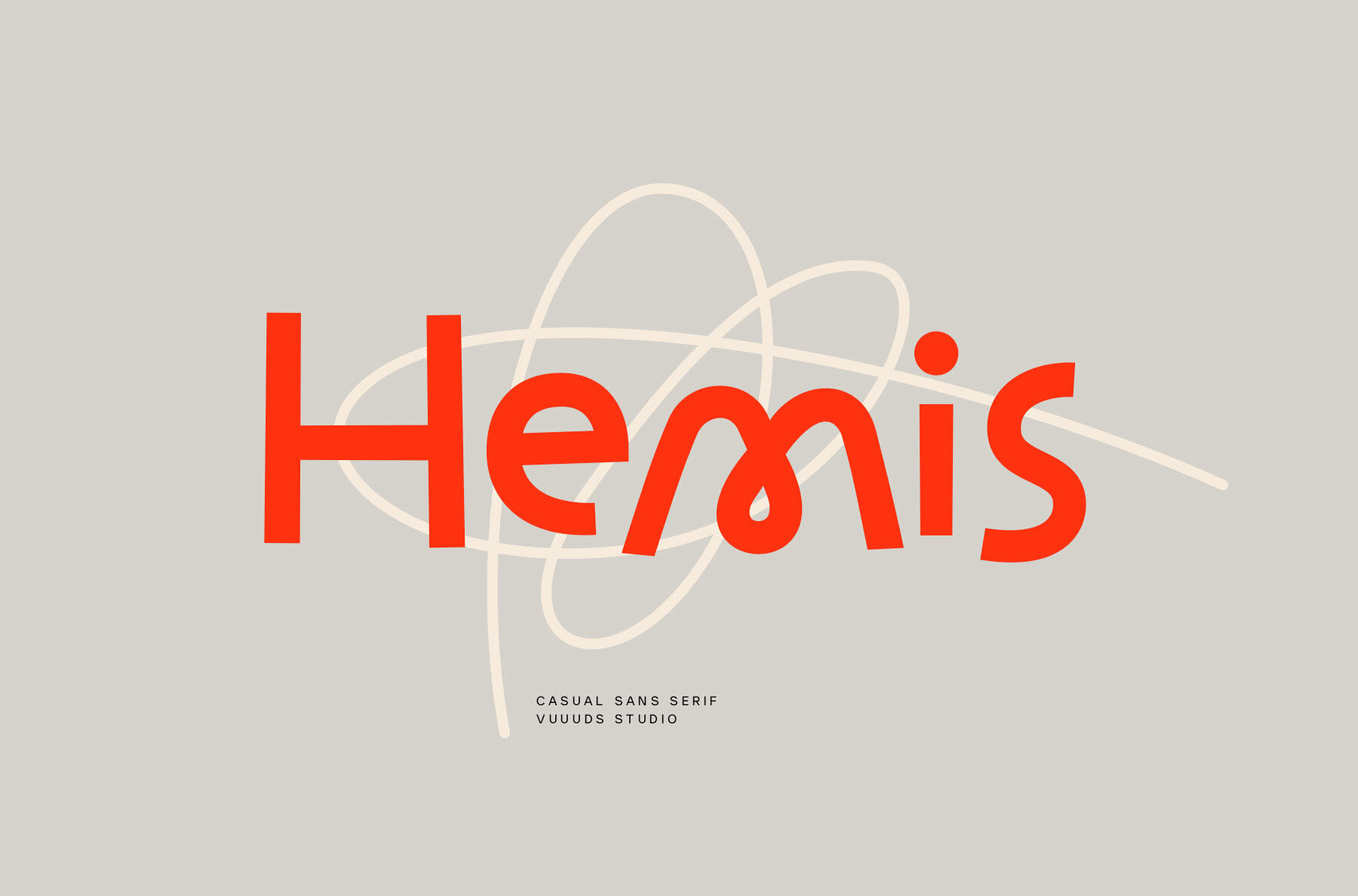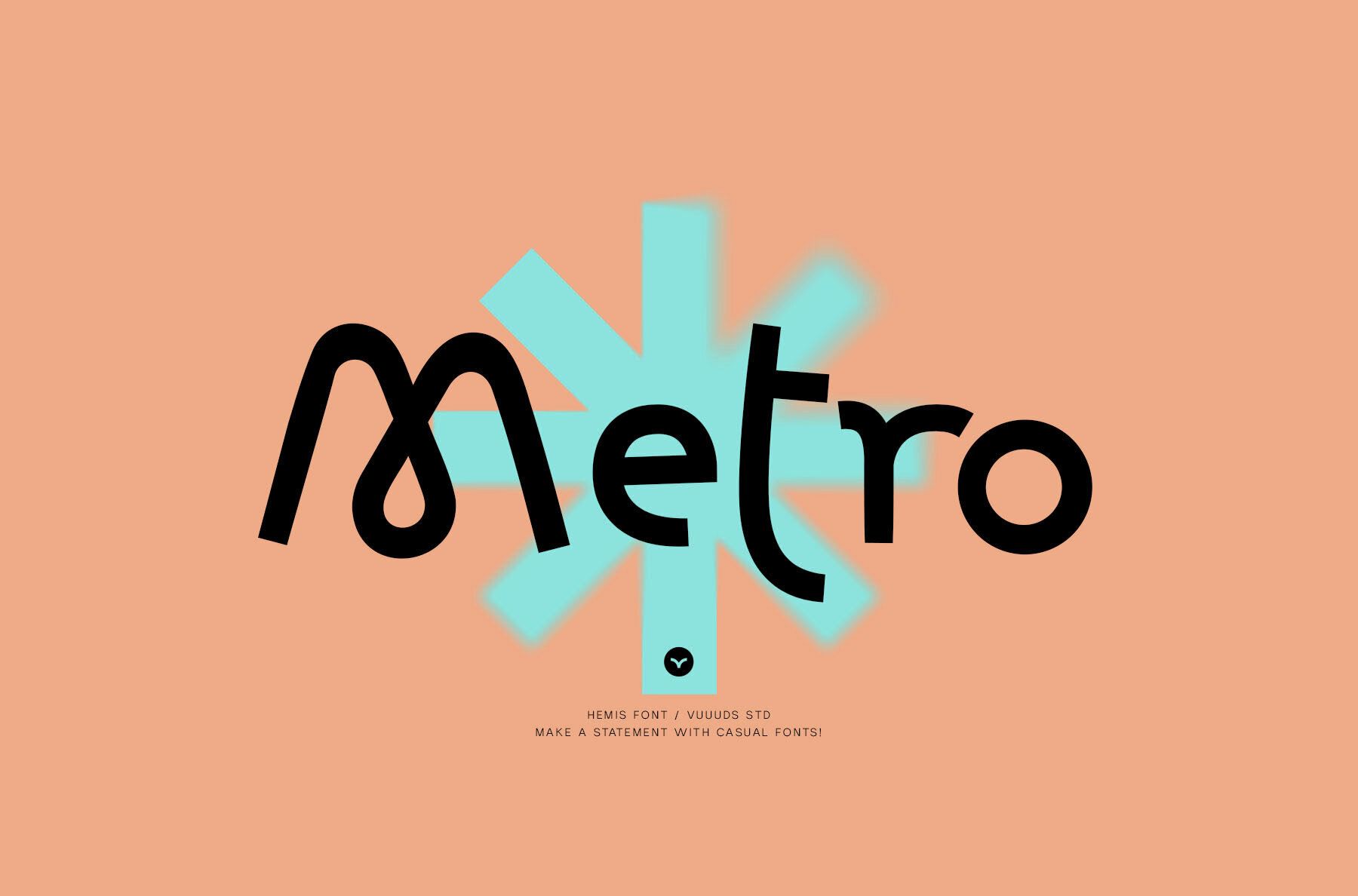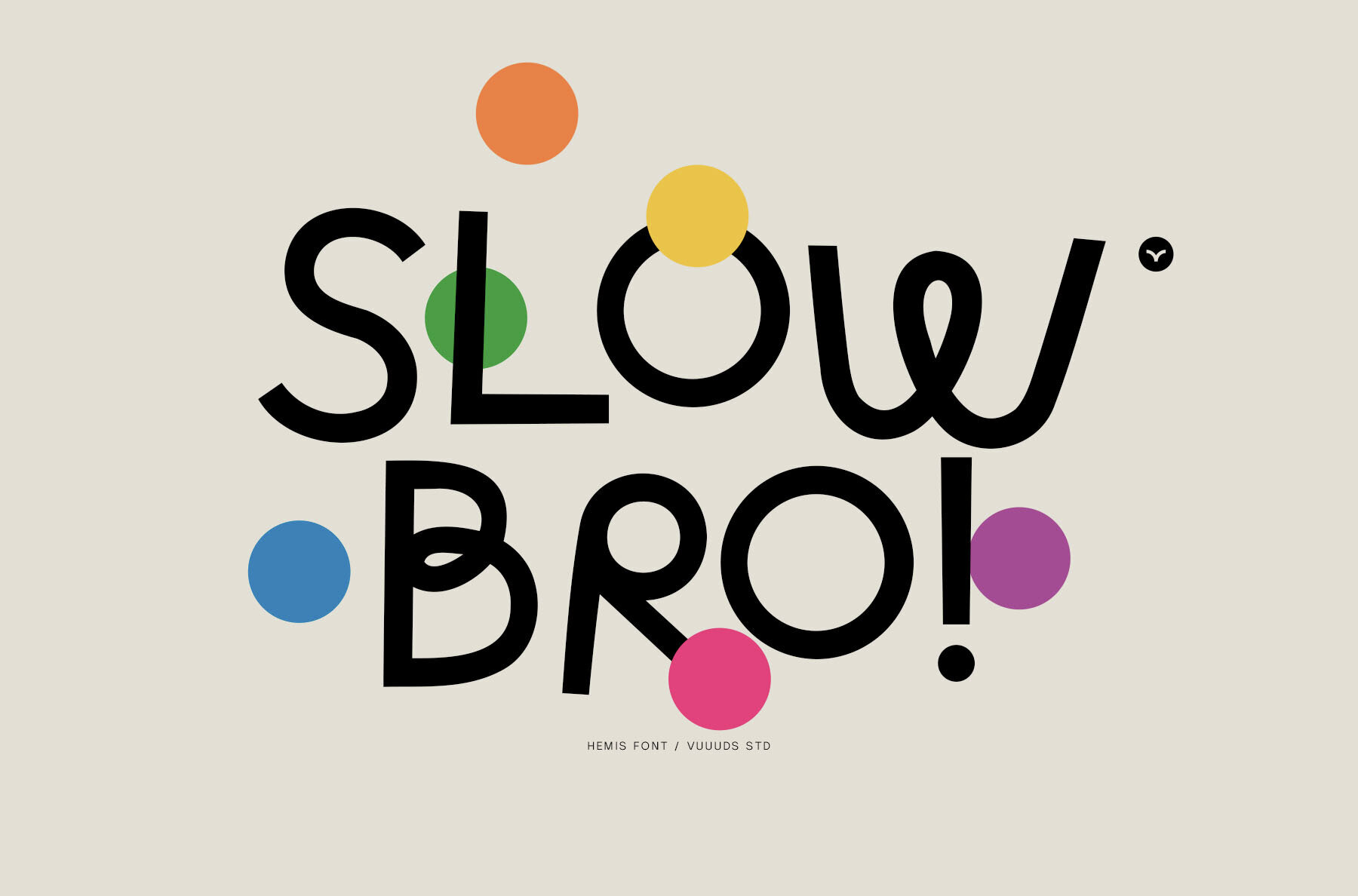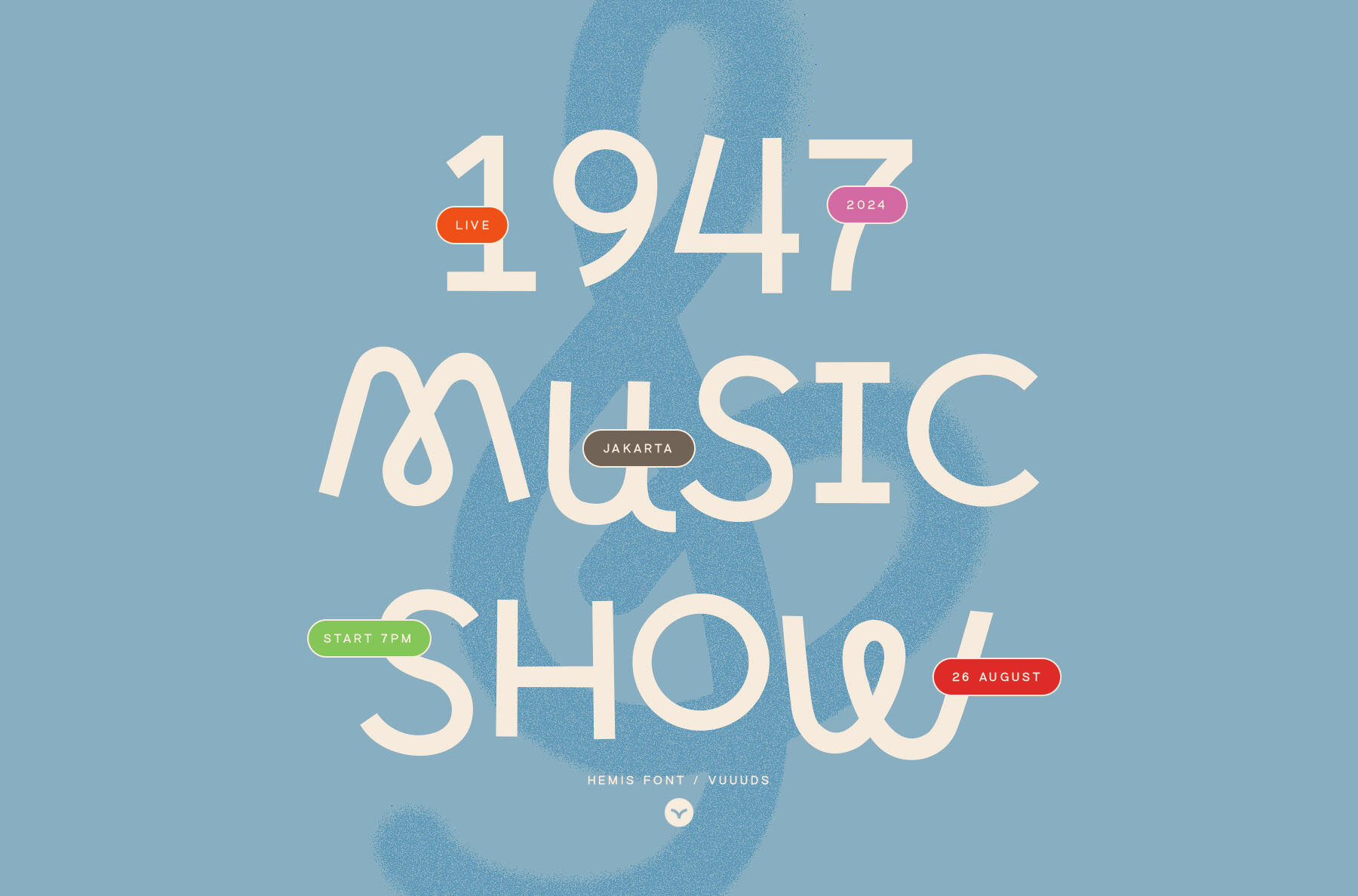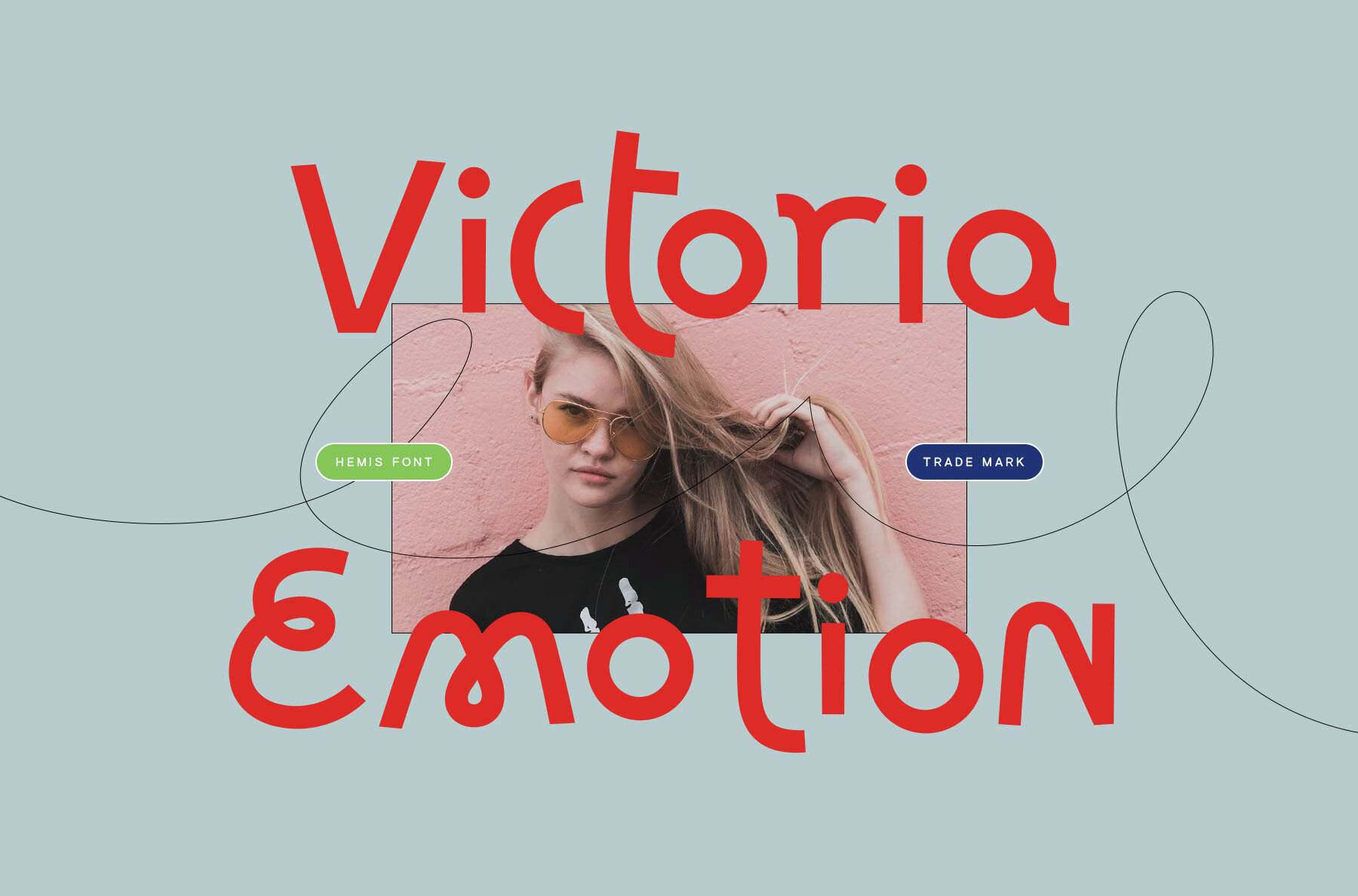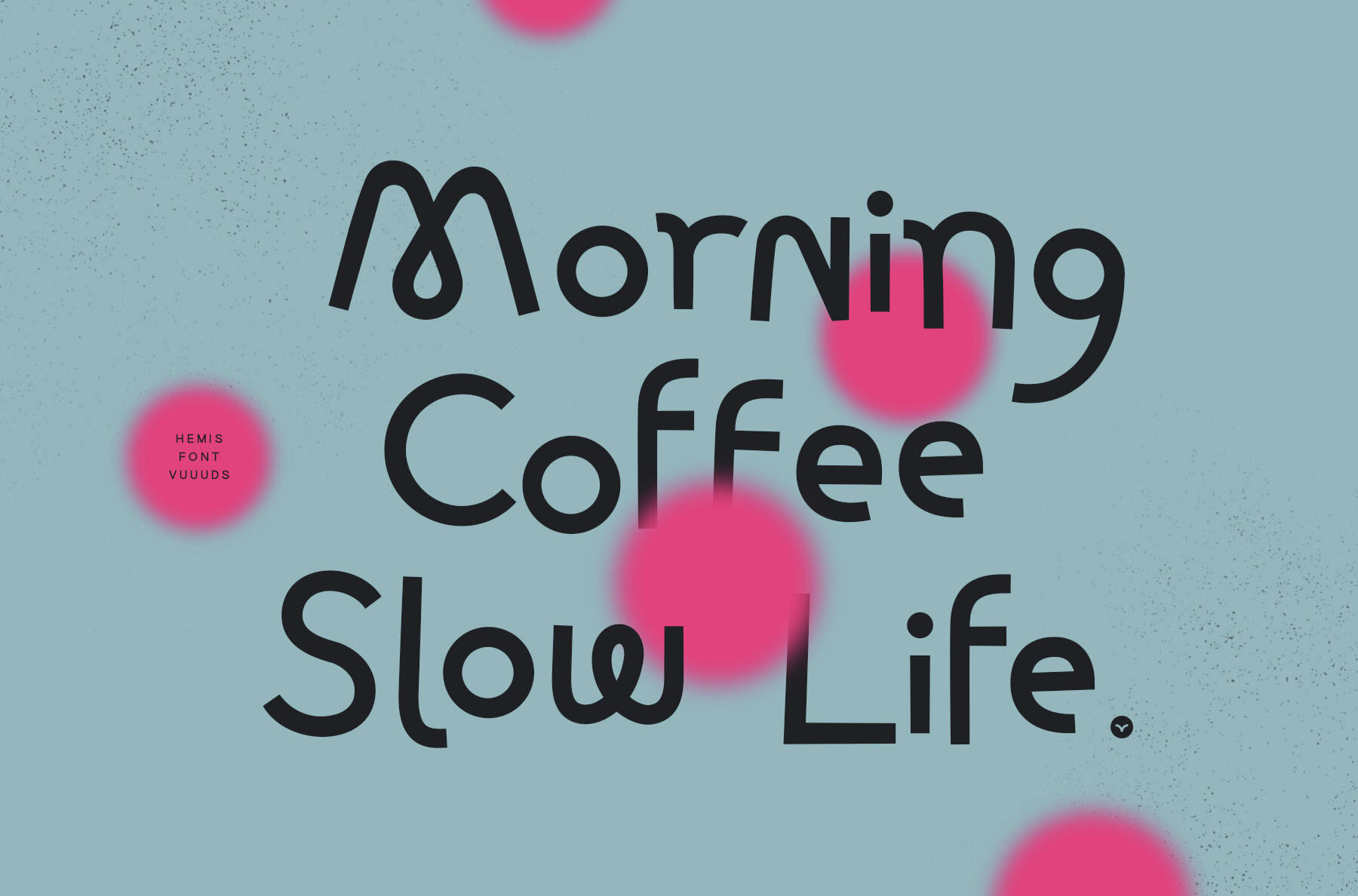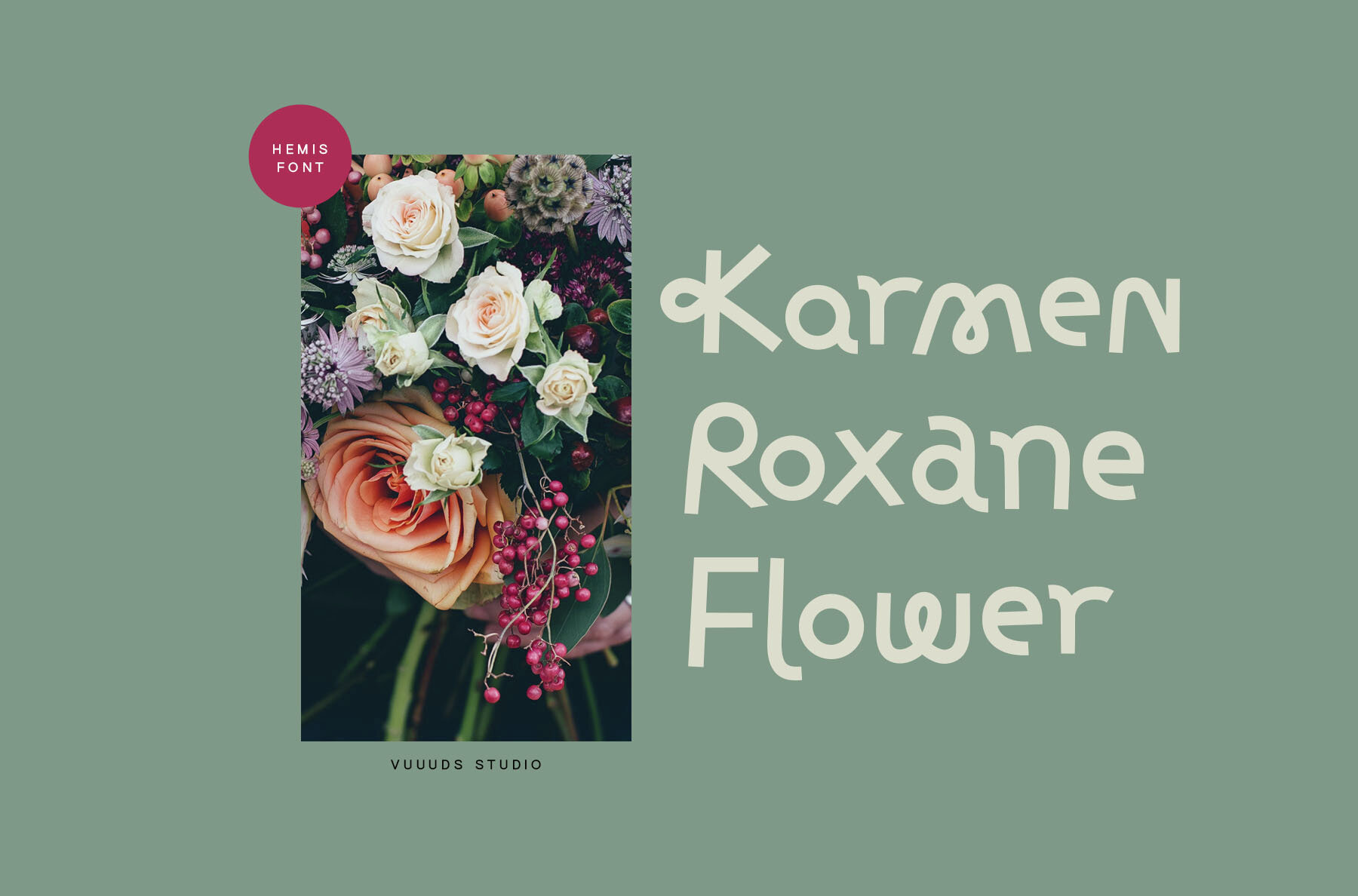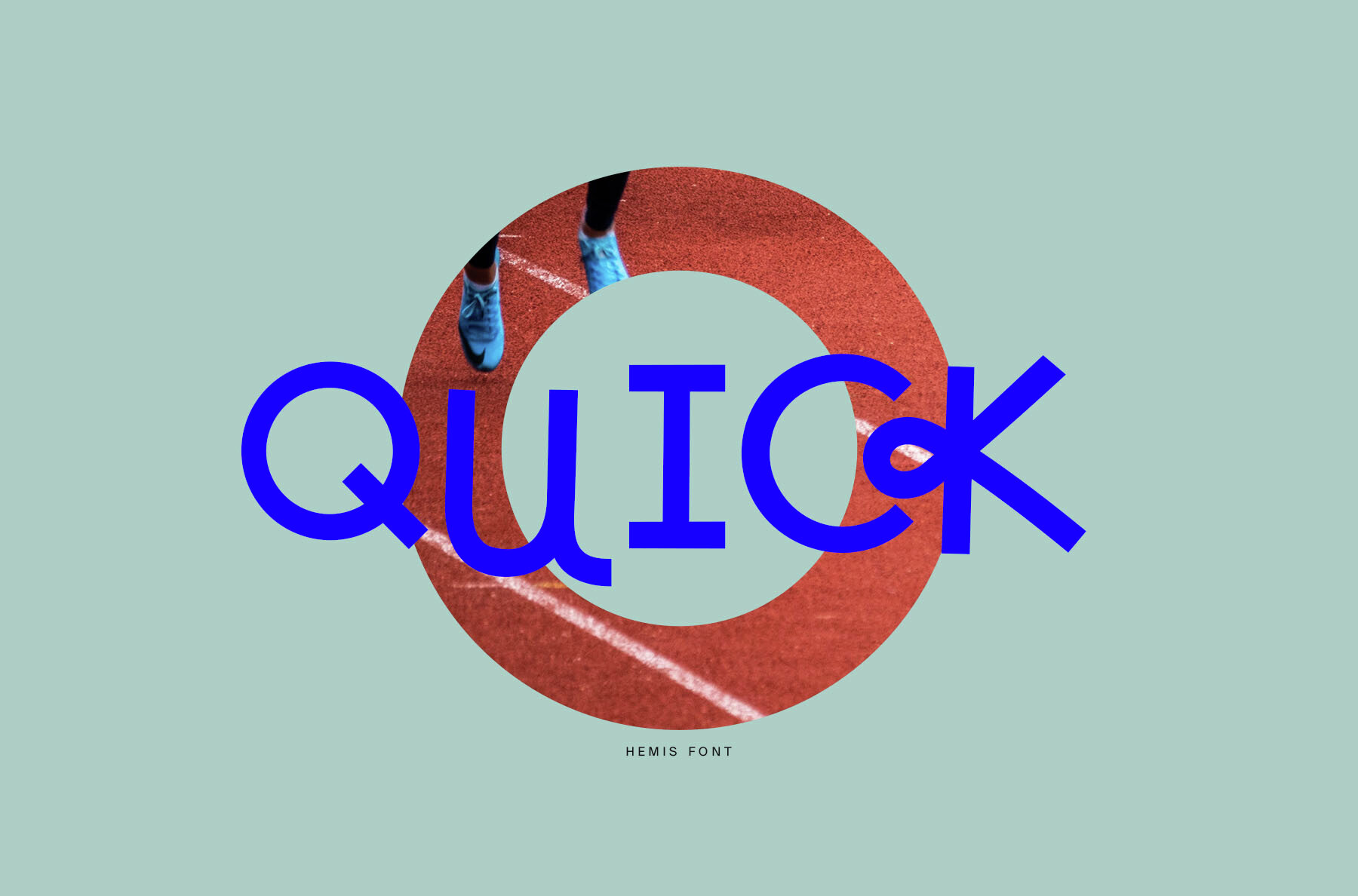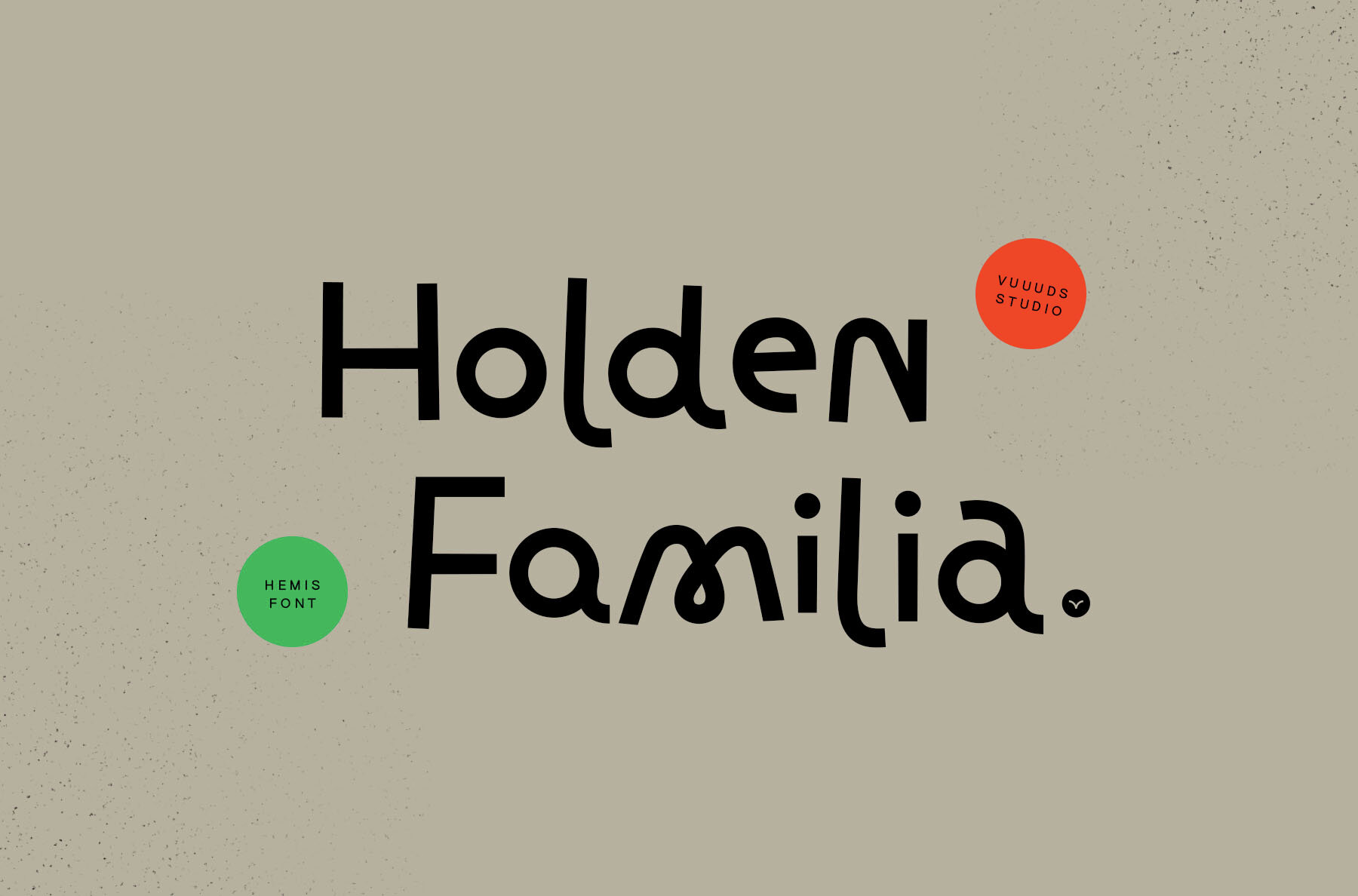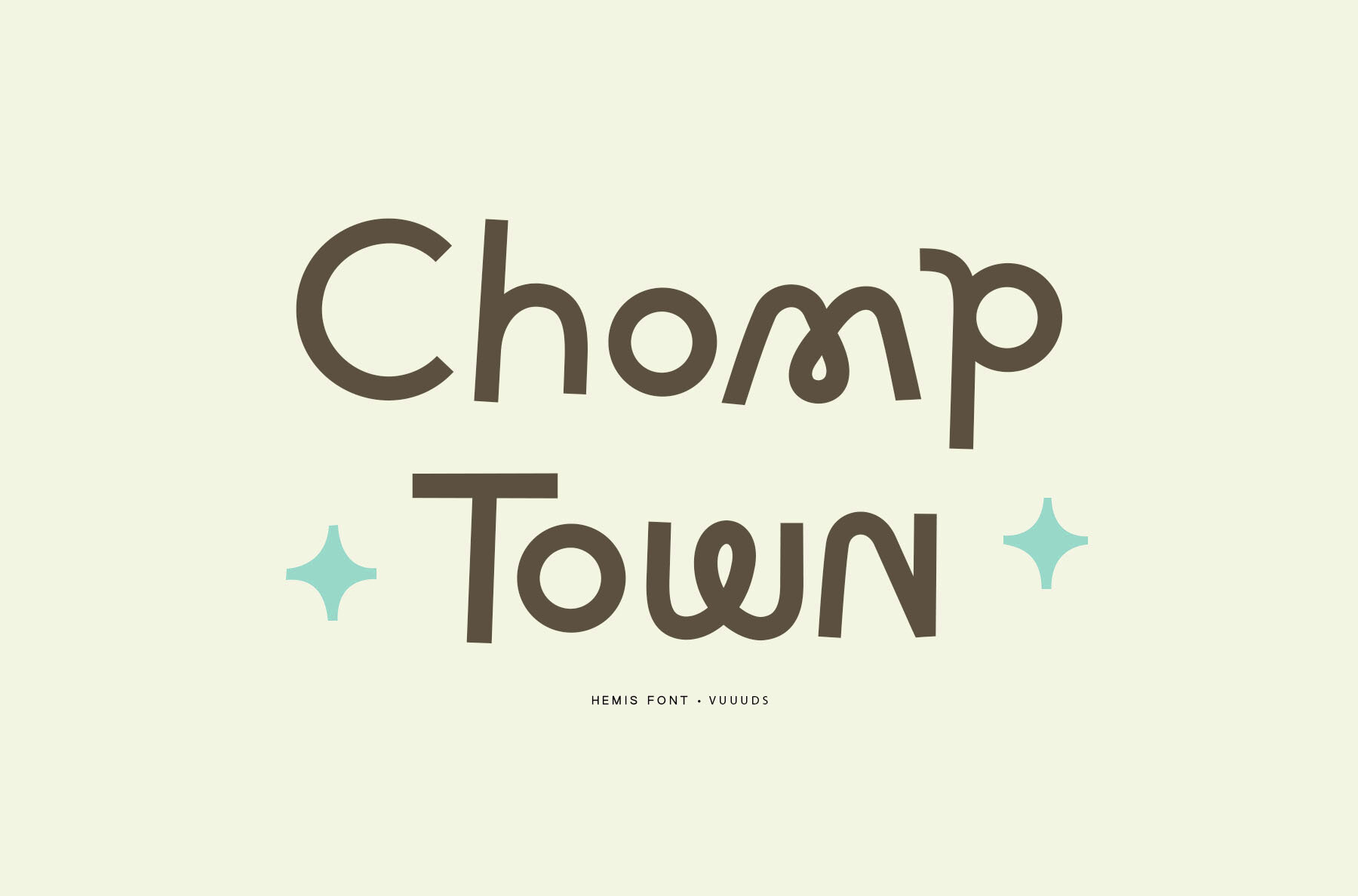
Hemis Font
Hemis
Hemis is a modern experimental sans serif font characterized by its uniquely crafted letterforms. Each character is distinct, offering designers a fresh and innovative typographic experience. The font includes an array of beautiful alternate glyphs, perfect for adding a personalized touch to your design projects.